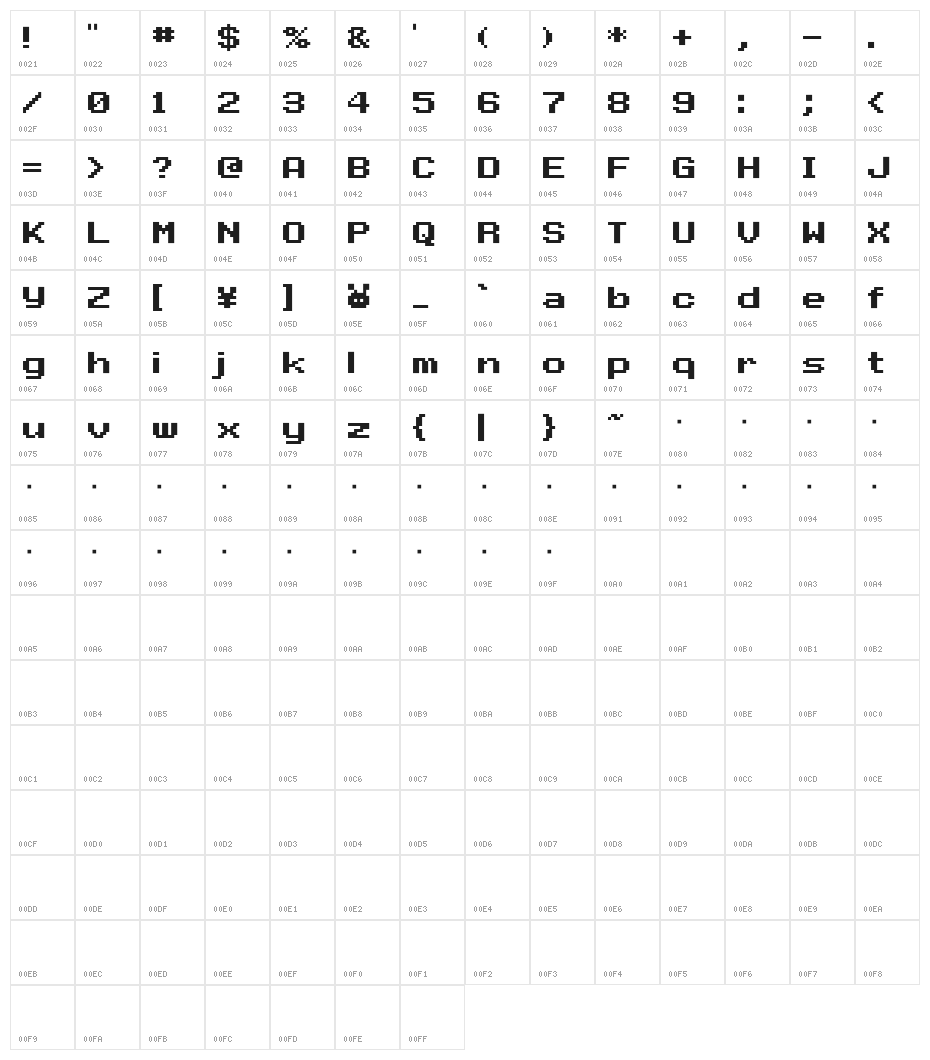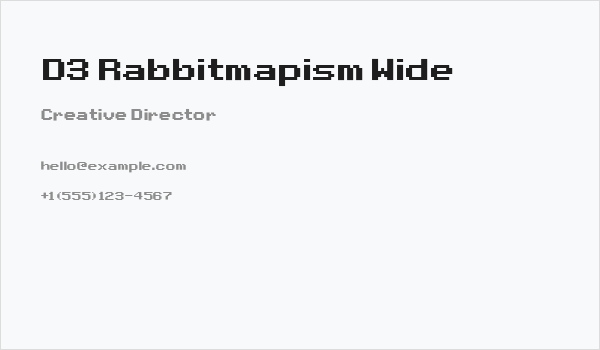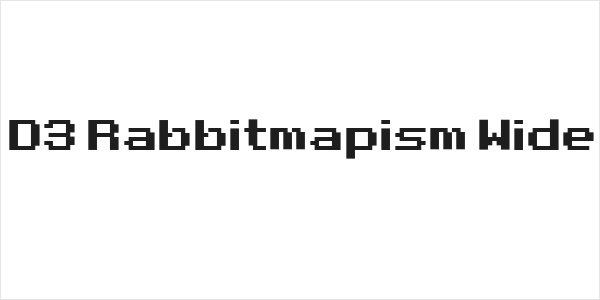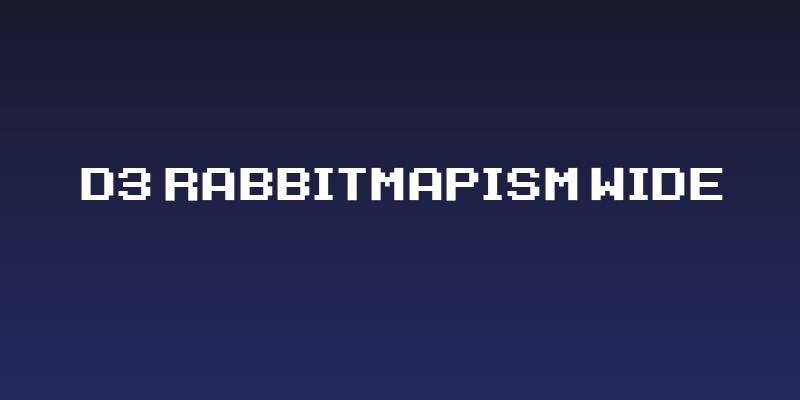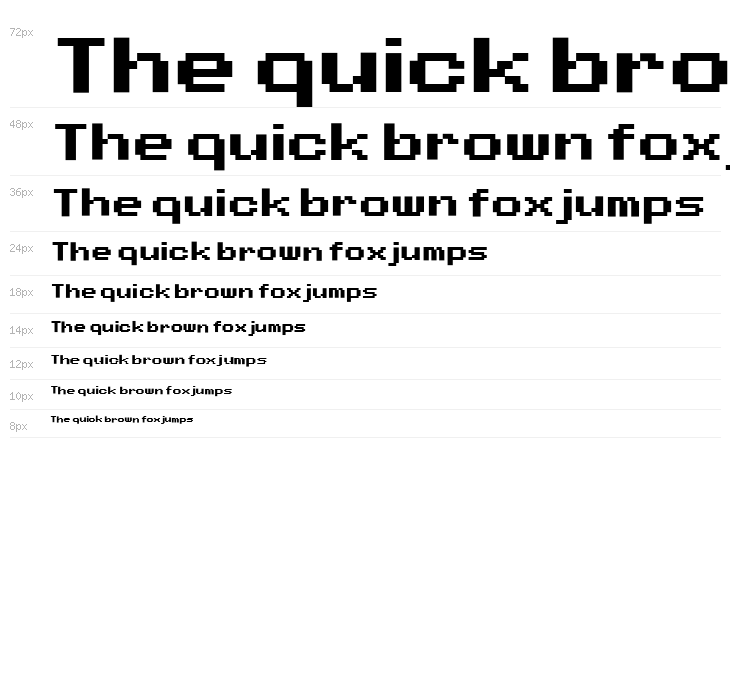
D3 Rabbitmapism Wide Font
D3 Rabbitmapism Wide Description
This font features a pixelated, blocky design reminiscent of early digital or arcade-style typefaces. Each character is constructed with a uniform grid-like structure, giving it a distinctly retro and digital appearance. The uppercase and lowercase letters maintain a consistent width, contributing to a monospaced feel, although the font is not strictly monospaced. The numerals and special characters follow the same pixelated style, ensuring uniformity across all glyphs. This font's design is bold and impactful, making it suitable for projects that require a nostalgic or tech-inspired aesthetic. The characters are evenly spaced, which enhances readability despite the unconventional style.
| Proposed Projects | Ideal for video game design, retro-themed posters, digital art projects, and tech-related branding. |